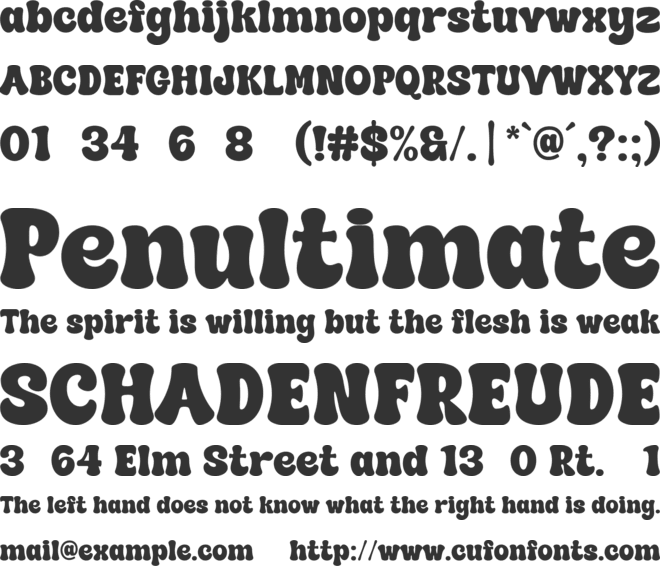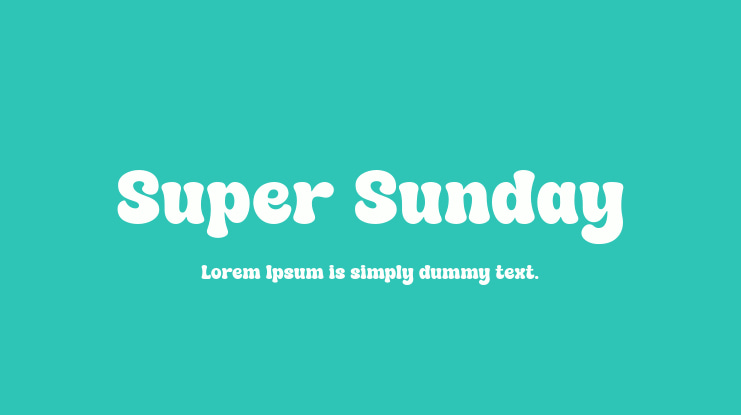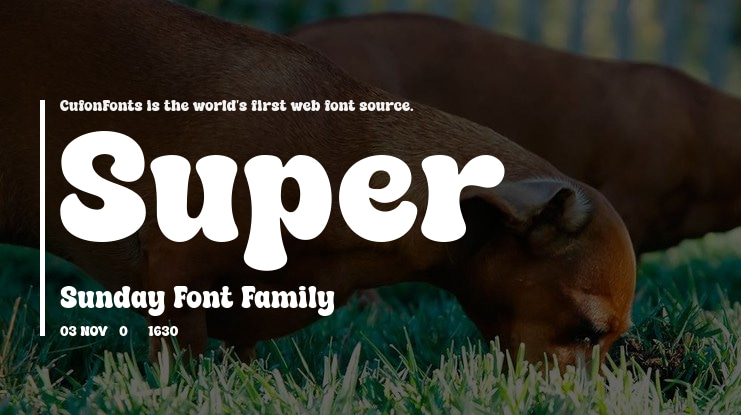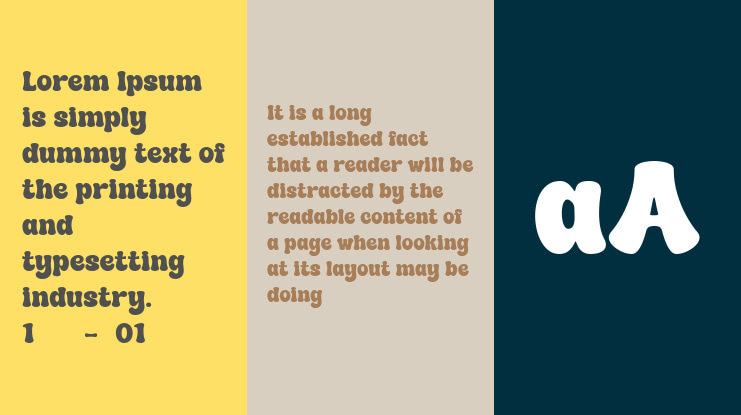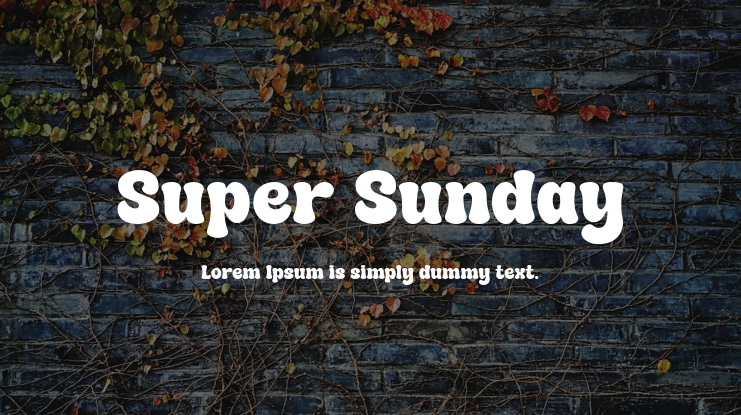
Super Sunday Font
This particular font is intended for personal use only. If you plan on using it for commercial purposes, you will be required to obtain a commercial license. You can conveniently acquire a commercial license for Super Sunday font by visiting the following website: https://allsuperfont.com/product/super-sunday/Introducing. Super Sunday font captures the relaxed atmosphere of Sundays with a touch of nostalgia. It is an ideal choice for infusing your designs with a dash of individuality, whether you are working on branding, invitations, posters, or simply looking to add a distinctive flair to your social media messages.